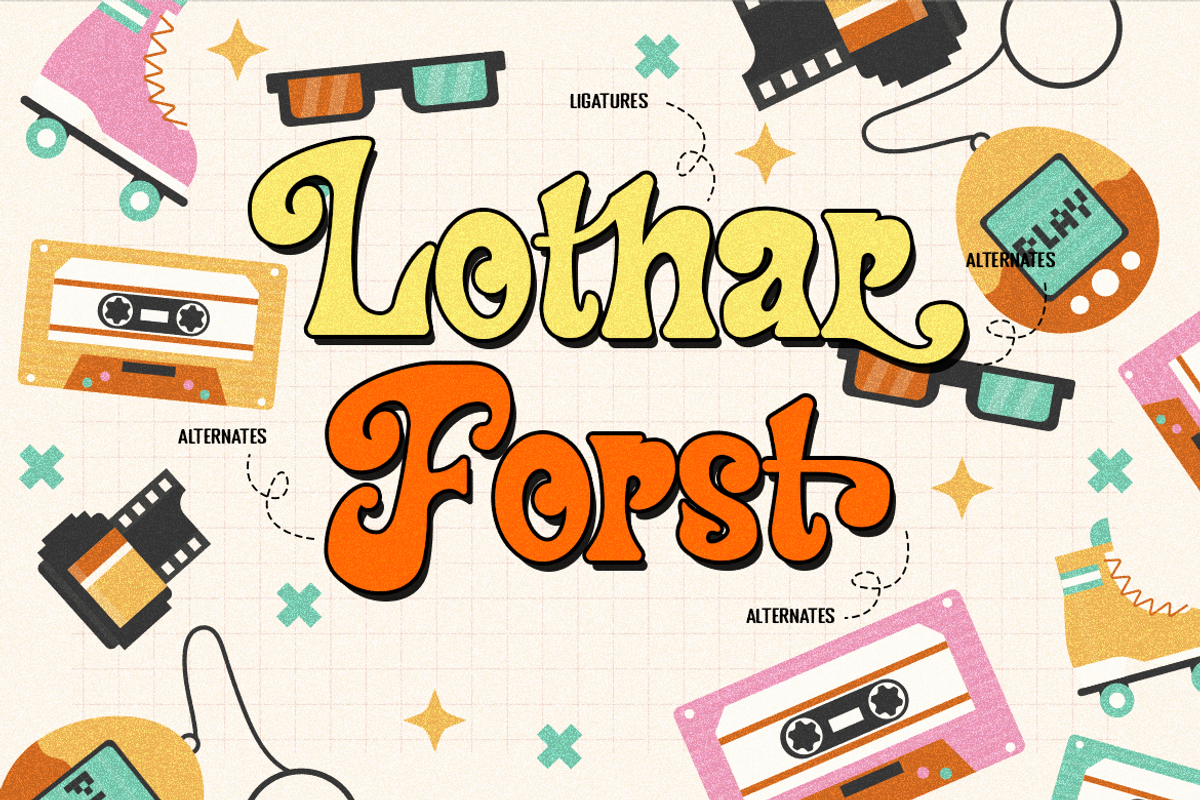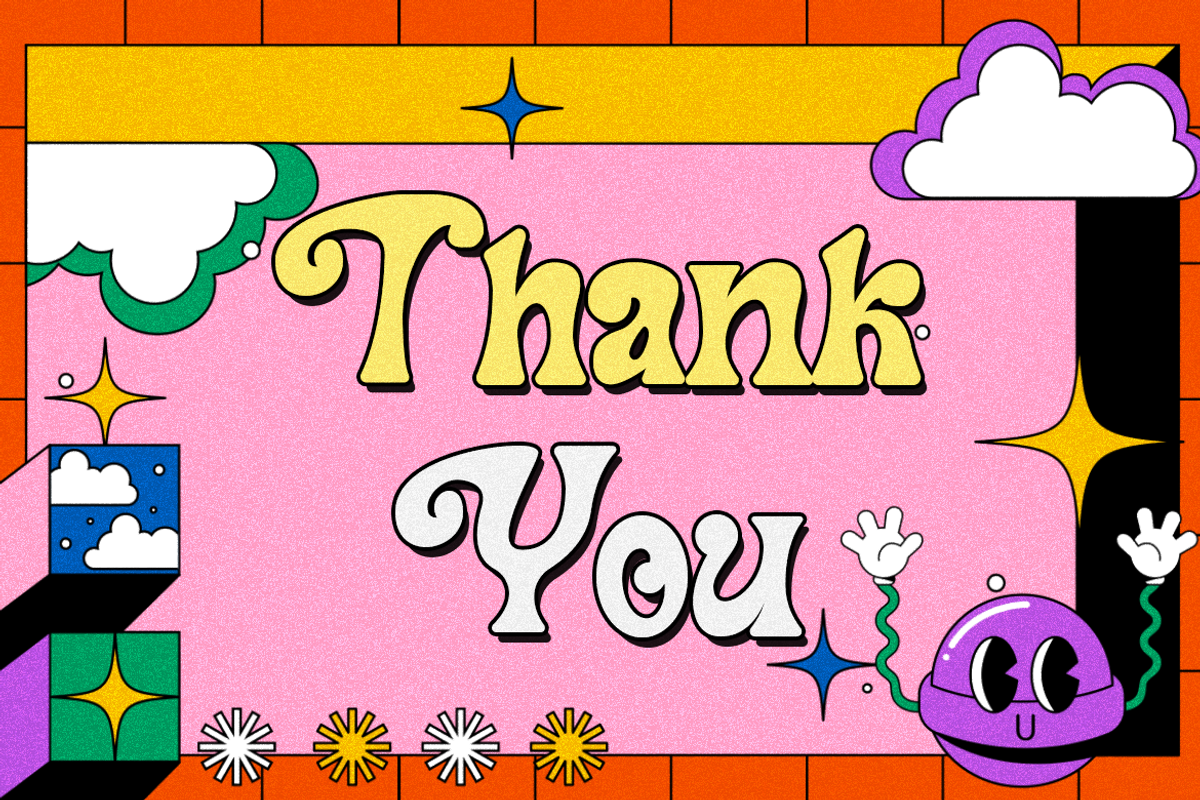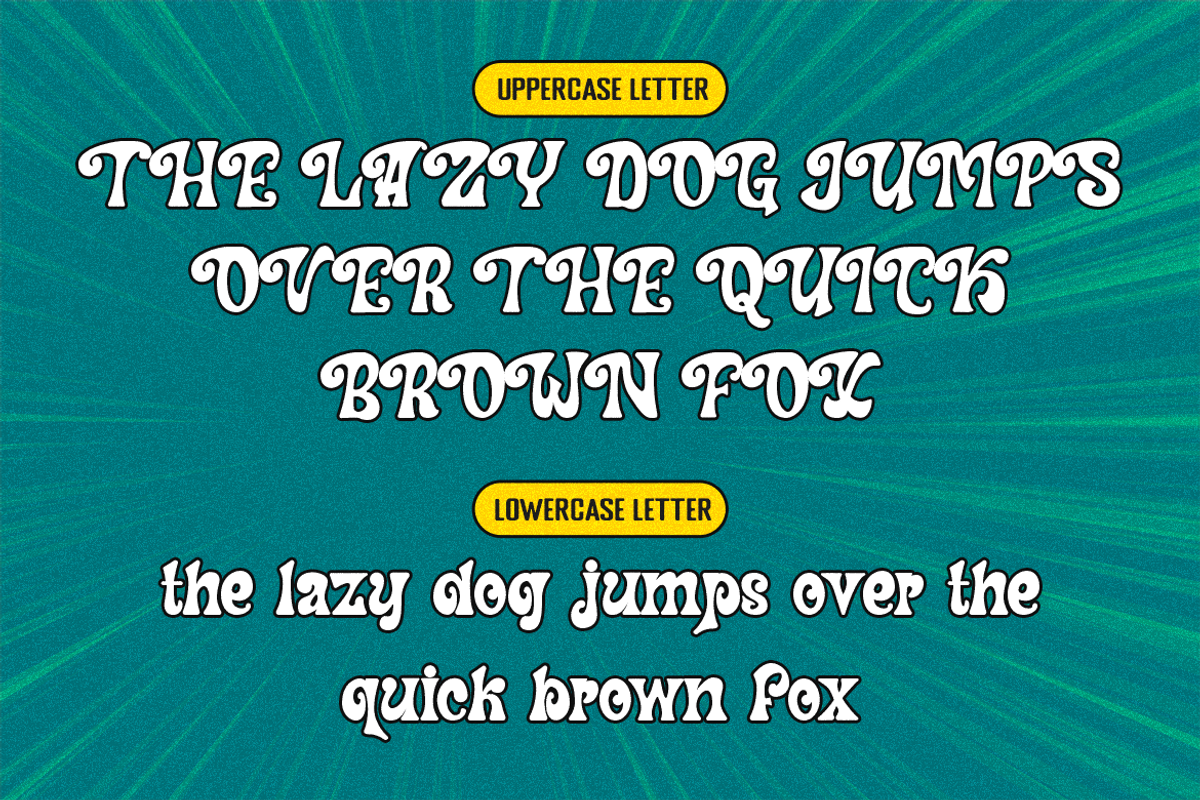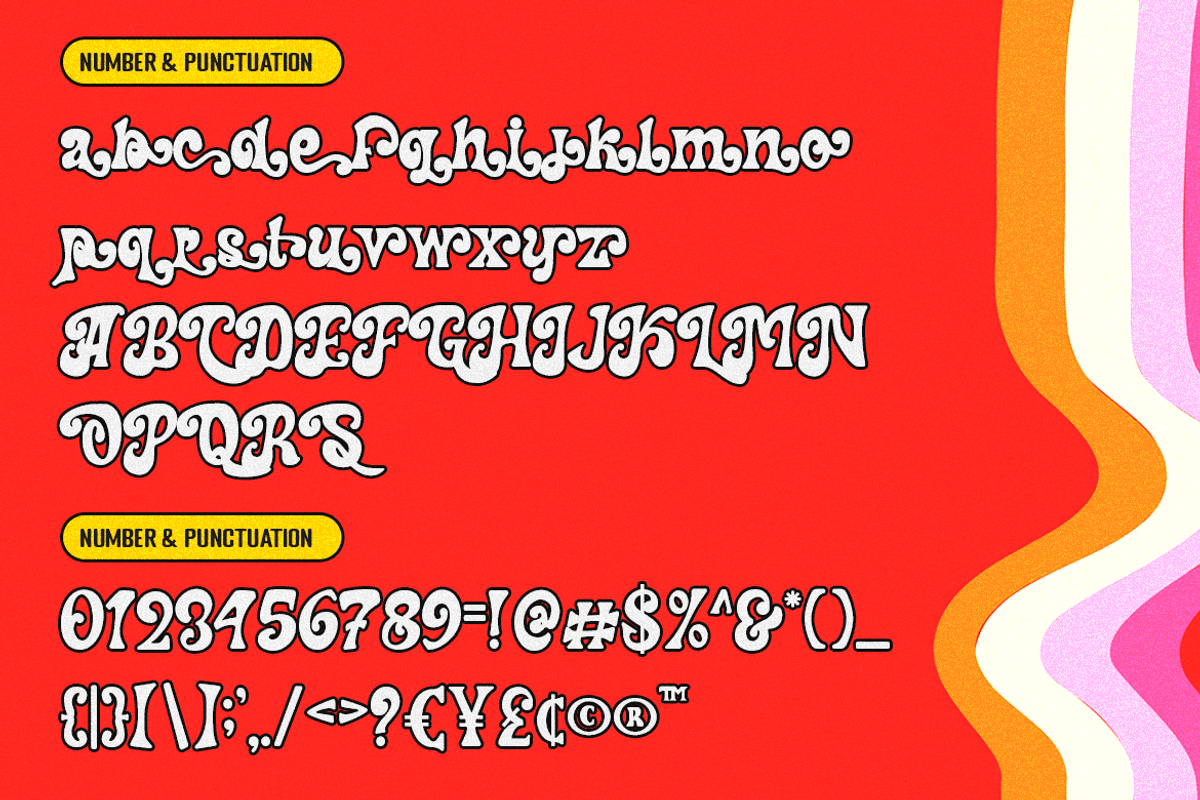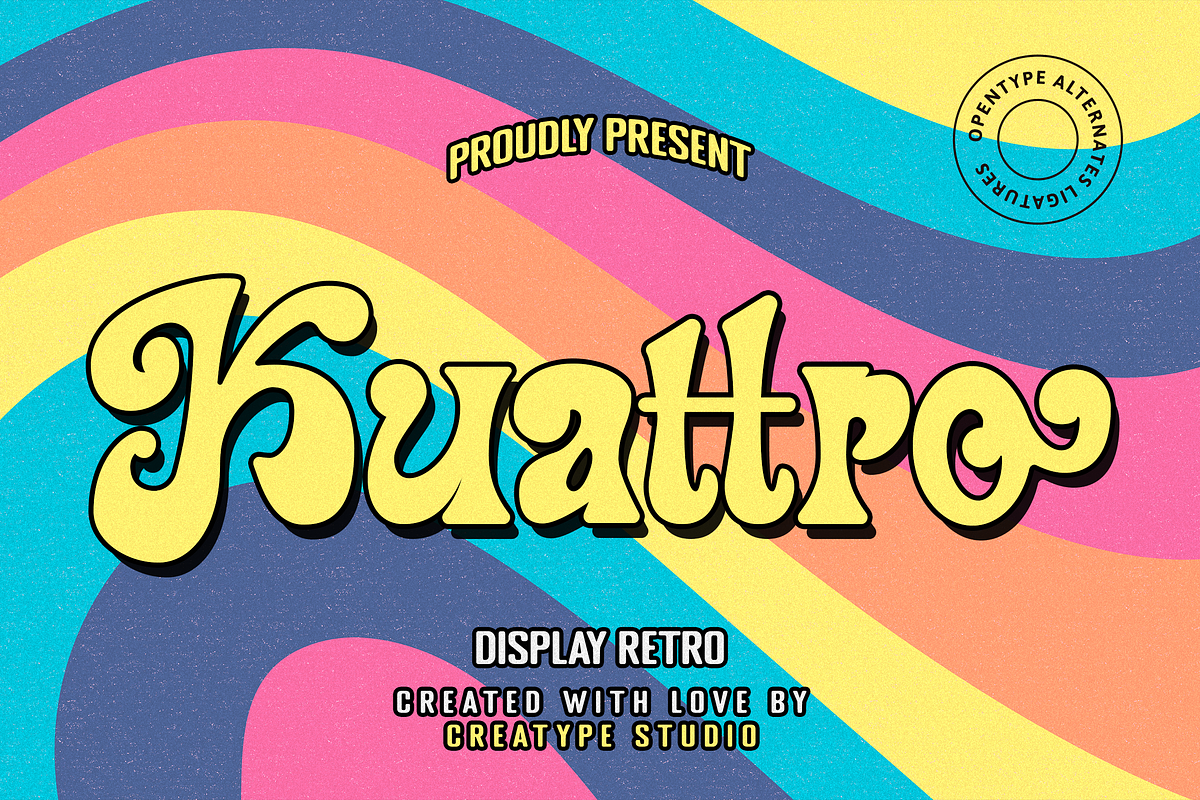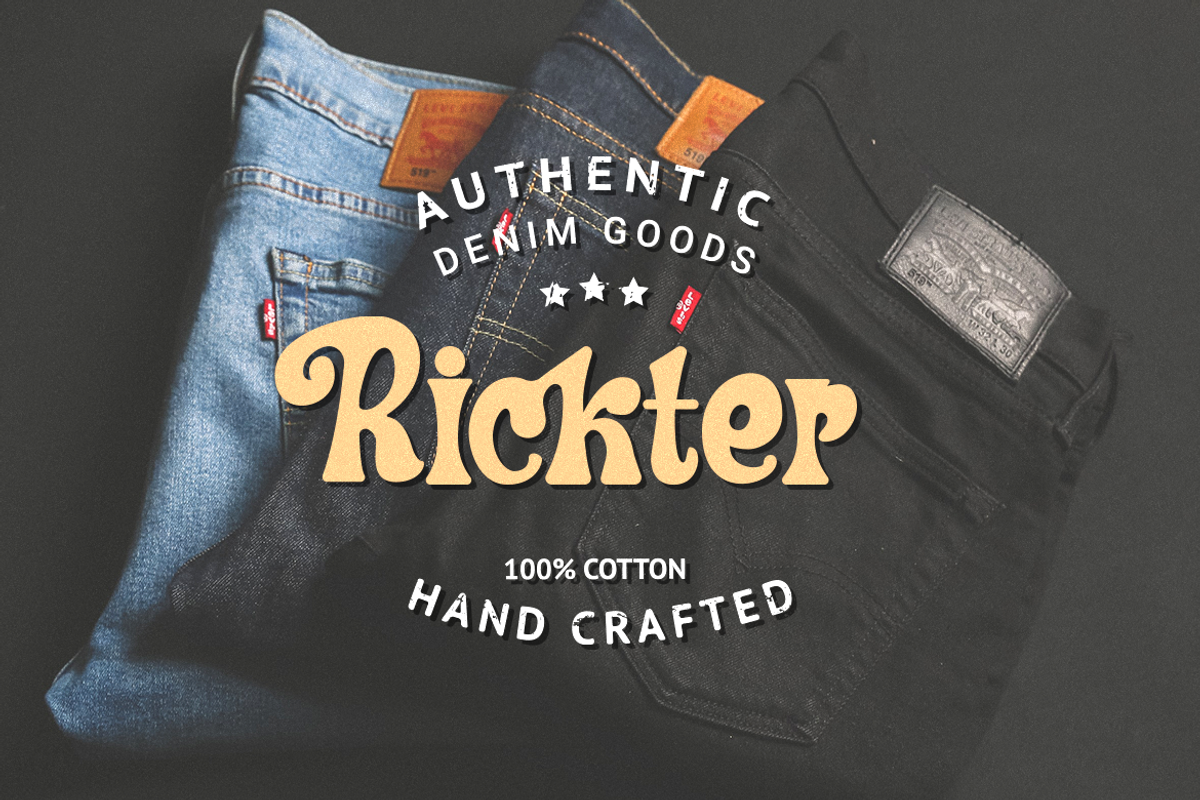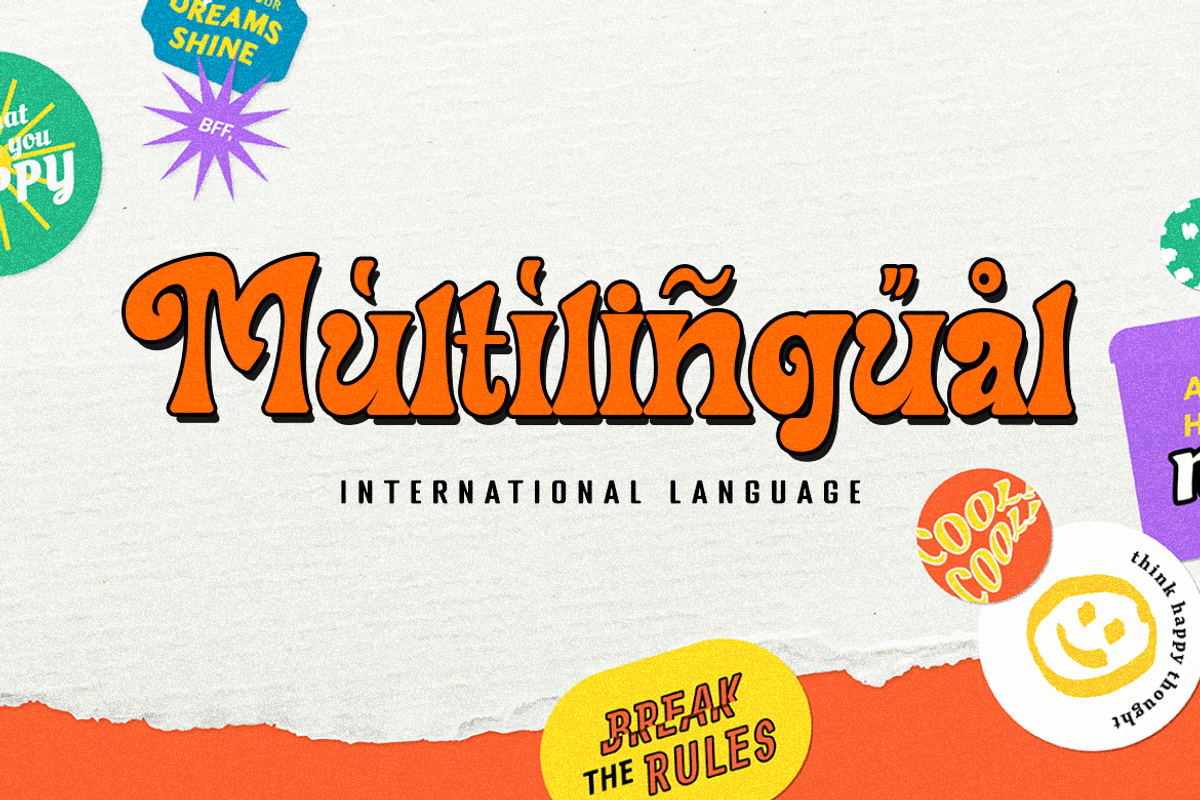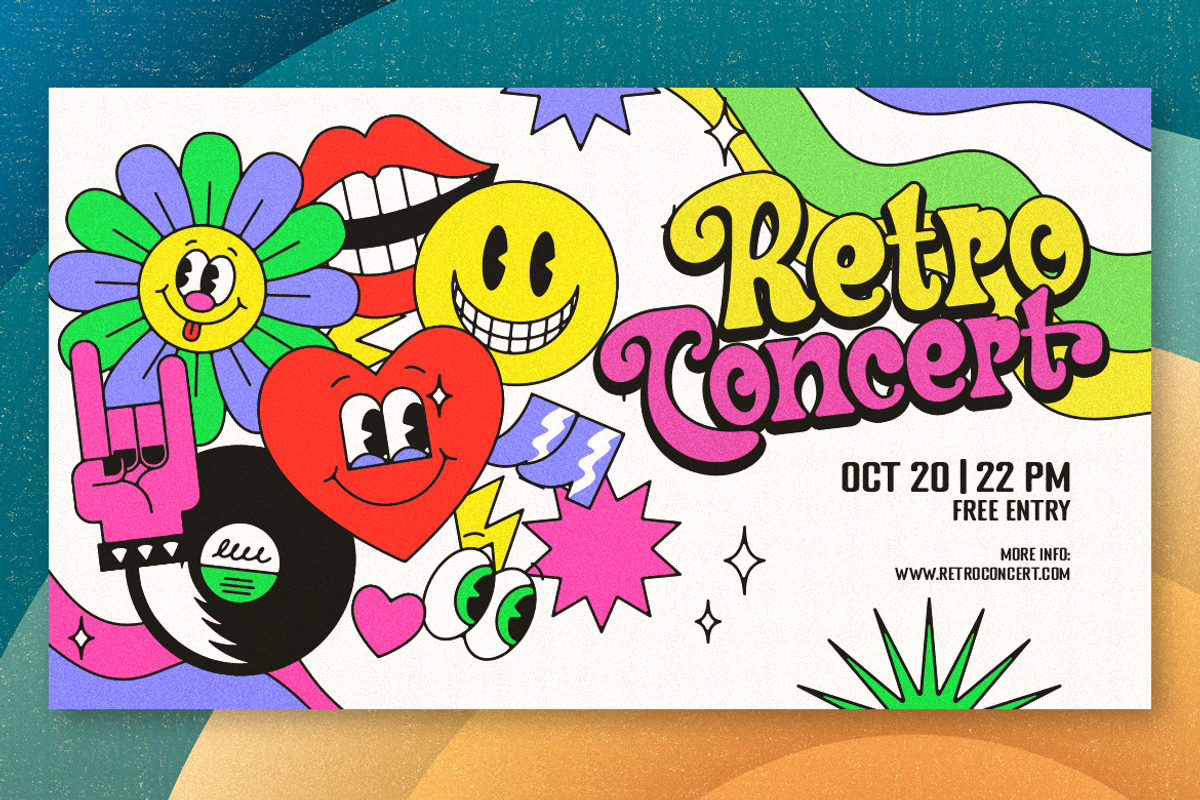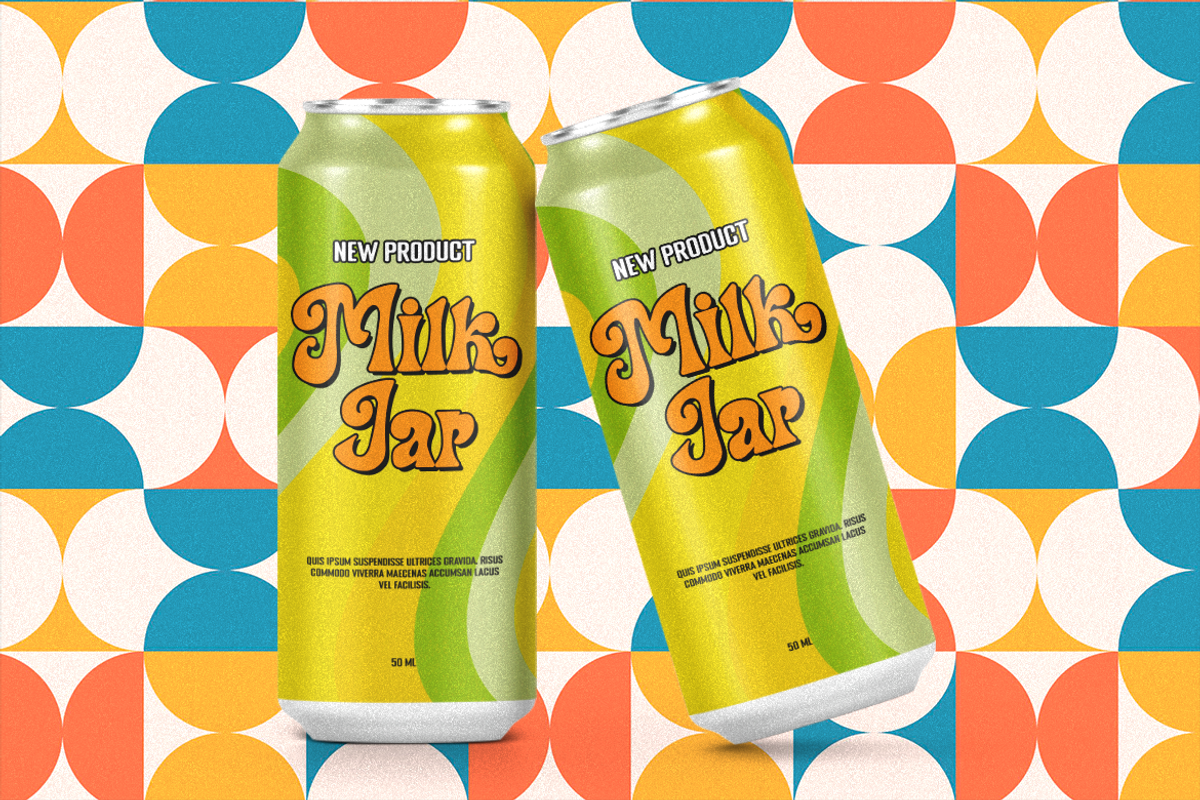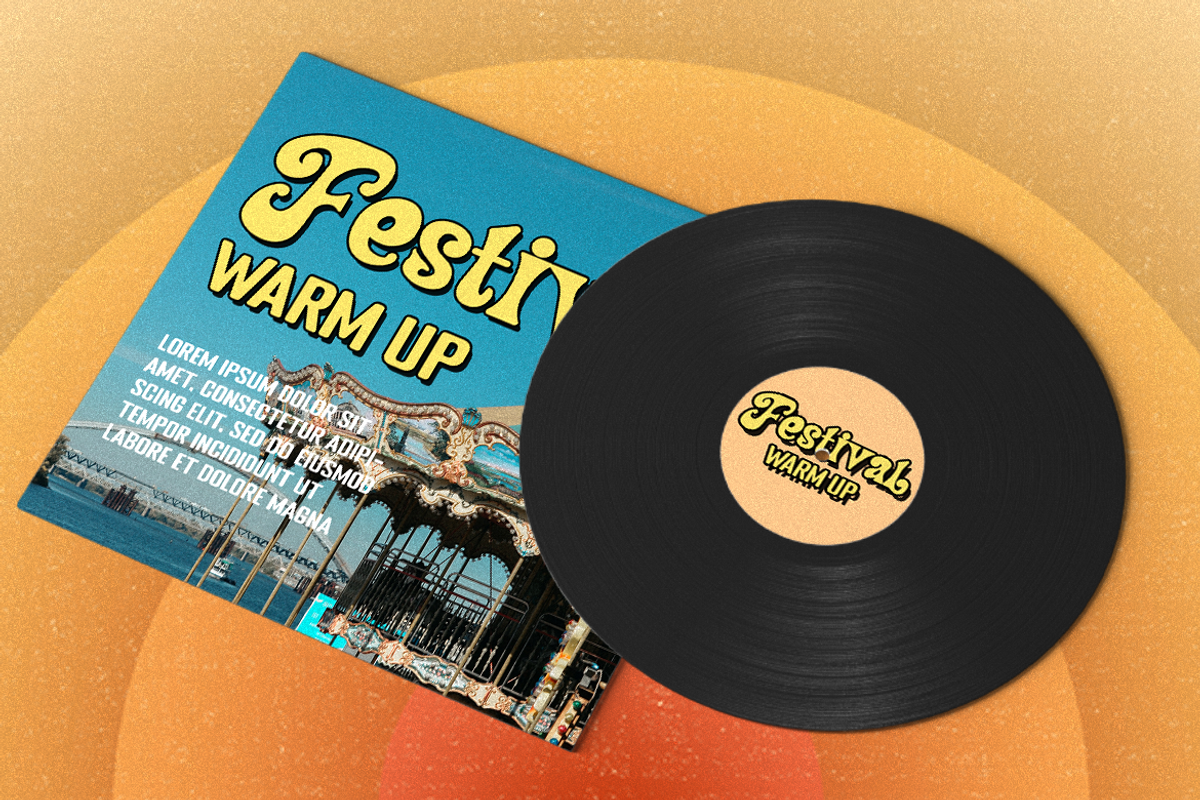
Kuattro Display Retro
Kuattro is a retro typeface that has fun and vintage vibes. Kuattro could deliver all the pop colors looks magnificent.
Kuattro is perfect for branding projects, logo, wedding designs, social media posts, advertisements, product packaging, product designs, label, photography, watermark, invitation, stationery and any projects that need handwriting taste.
- Ligature & Alternate